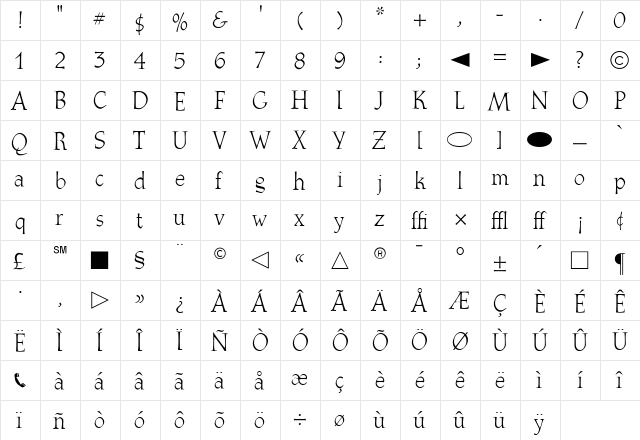
CgAthenaeum Medium
Design Context for CgAthenaeum Typeface
CgAthenaeum takes a measured approach to typography — its balanced proportions and neutral character make it a reliable workhorse for both digital and print work.